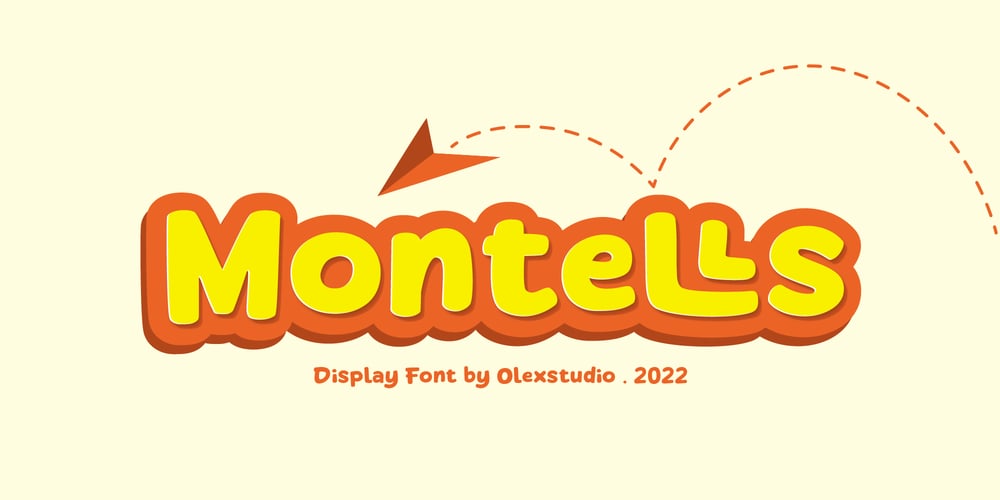
Montells Font Family was designed by Firman Syah and published by Olexstudio. Montells contains 1 styles and family package options. MONTELLS – Display Font will look gorgeous on all your designs, invitation, poster design, book design, branding materials, logo’s and all project design other.MONTELLS – Display Font contains standard characters, character is Uppercase, Lowercase, numbers, punctuation, ligatures and international glyphs.